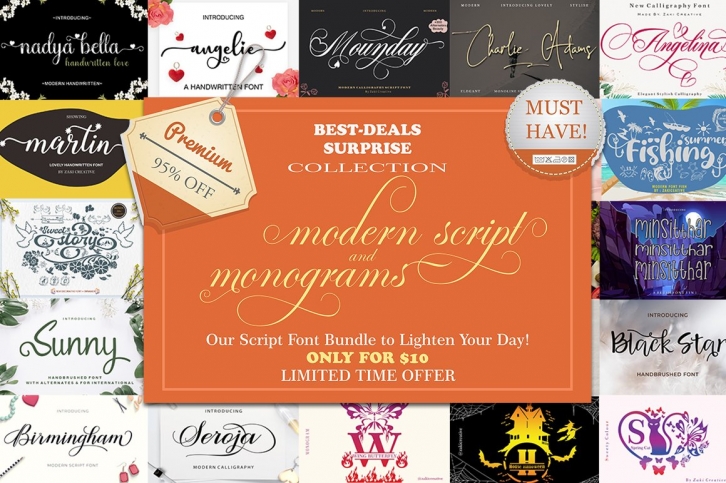
The Wonderful Bundle Script & Monogram Vol 1 is a beautiful font that was designed by Zacky Studio. It's a great choice for designers and creatives who need such a font. It was released on June 6, 2022 and the file size is 4.78 MB. The Wonderful Bundle Script & Monogram Vol 1 may give a more youthful, expressive and casual look to your project. It is a very beautiful, refined, elegant, and high-quality font.